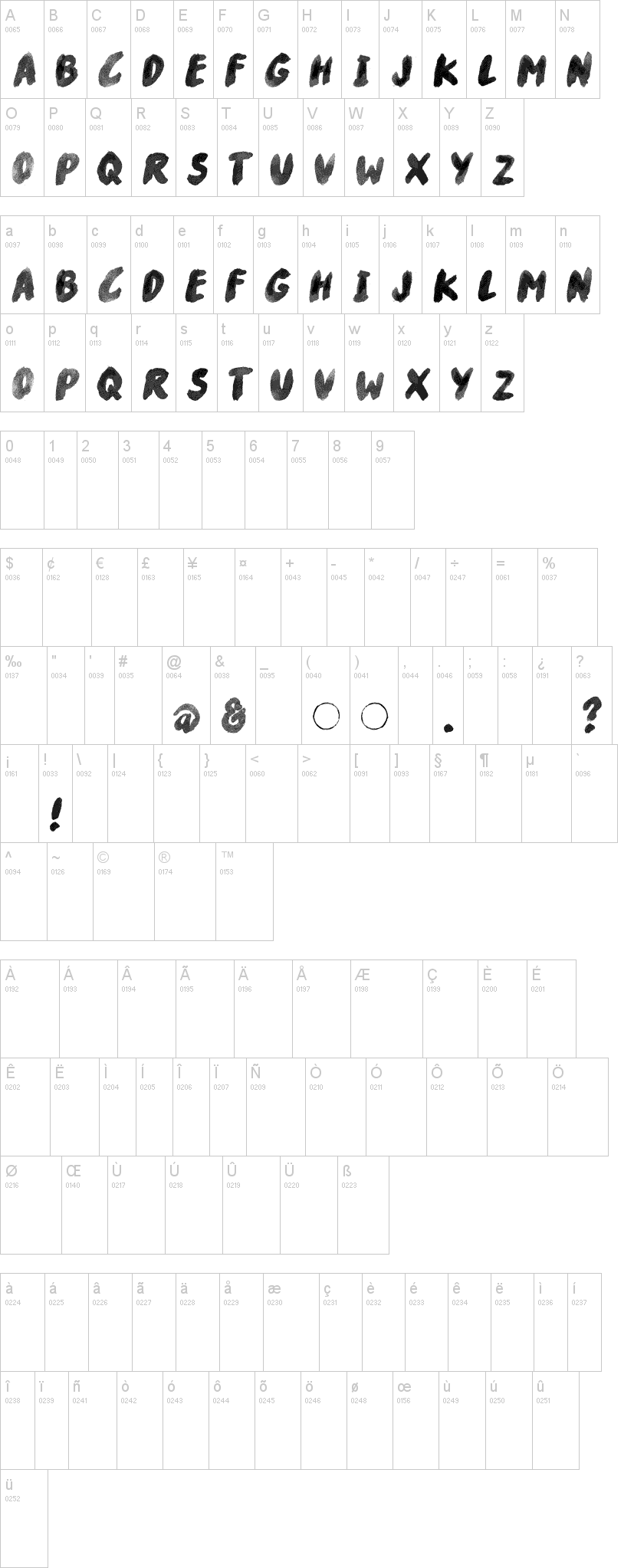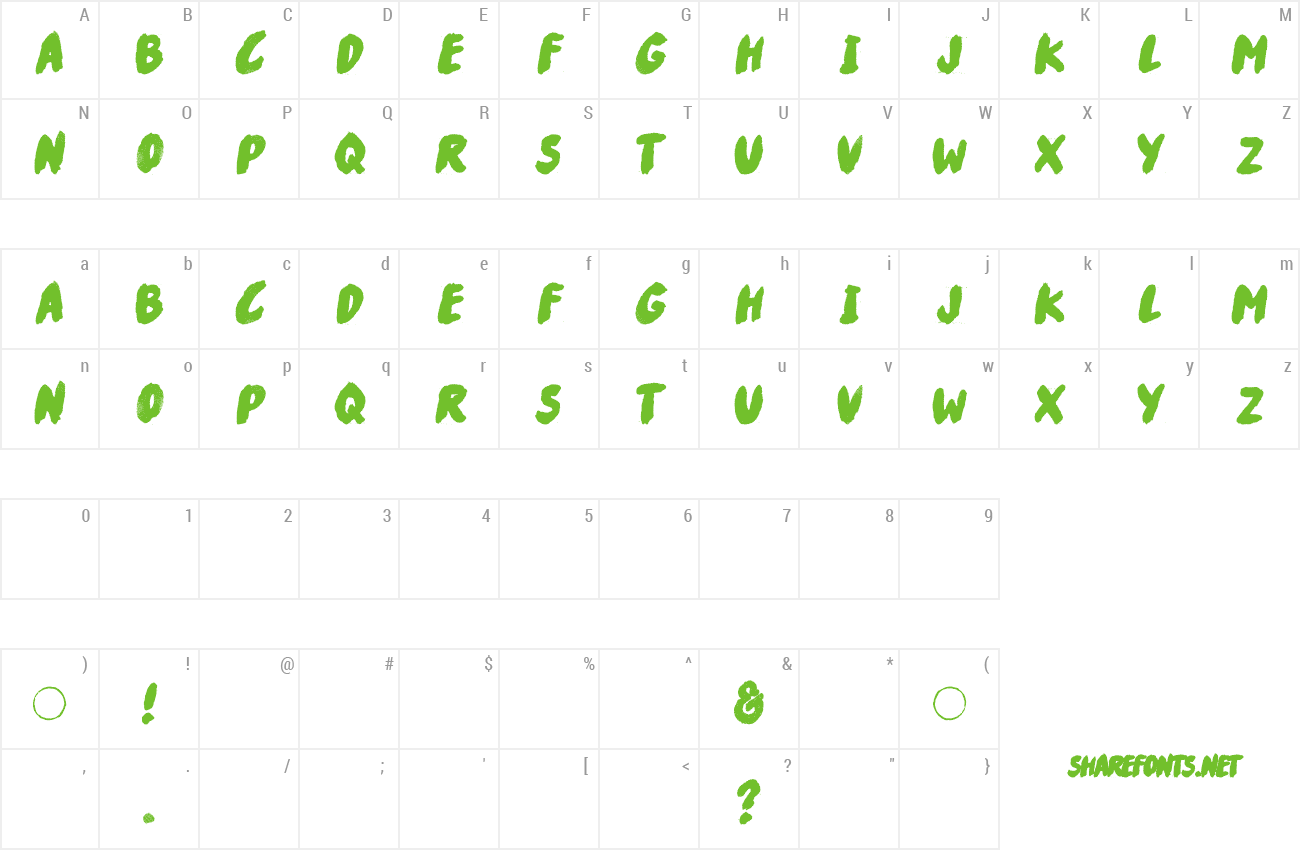
River Drive Font
River Drive Font - This is a new level font creation! New fonts | top fonts | submit a font | font designers | 10,000 fonts | faq | contact Web river drive by the branded quotes. Web river drive font. This is a new level font creation! River drive is a combination of modern brush and street typography with the look of a newly applied wet substance. Web download the river drive font by the branded quotes. Web river drive free font. The river drive font has been downloaded 29,524 times. River drive is a combination of modern brush and street typography with the look of a newly applied wet substance.
Web download the river drive font by the branded quotes. The river drive font has been downloaded 29,524 times. This is a new level font creation! Web river drive free font. River drive is a combination of modern brush and street typography with the look of a newly applied wet substance. Web river drive font. River drive is a combination of modern brush and street typography with the look of a newly applied wet substance. New fonts | top fonts | submit a font | font designers | 10,000 fonts | faq | contact This is a new level font creation! Web river drive by the branded quotes.
Web river drive free font. Web river drive font. This is a new level font creation! The river drive font has been downloaded 29,524 times. River drive is a combination of modern brush and street typography with the look of a newly applied wet substance. New fonts | top fonts | submit a font | font designers | 10,000 fonts | faq | contact River drive is a combination of modern brush and street typography with the look of a newly applied wet substance. Web download the river drive font by the branded quotes. Web river drive by the branded quotes.
River Drive Font
This is a new level font creation! River drive is a combination of modern brush and street typography with the look of a newly applied wet substance. Web river drive by the branded quotes. New fonts | top fonts | submit a font | font designers | 10,000 fonts | faq | contact Web download the river drive font by.
River drive is a combination of modern brush and street typography with the look of a newly applied wet substance. Web river drive free font. Web download the river drive font by the branded quotes. The river drive font has been downloaded 29,524 times. Web river drive by the branded quotes.
River drive is a combination of modern brush and street typography with the look of a newly applied wet substance. River drive is a combination of modern brush and street typography with the look of a newly applied wet substance. Web river drive free font. Web river drive by the branded quotes.
River Drive font
The river drive font has been downloaded 29,524 times. Web river drive font. Web river drive by the branded quotes. This is a new level font creation! River drive is a combination of modern brush and street typography with the look of a newly applied wet substance.
River drive is a combination of modern brush and street typography with the look of a newly applied wet substance. Web download the river drive font by the branded quotes. The river drive font has been downloaded 29,524 times. Web river drive by the branded quotes. This is a new level font creation!
River Drive Font
Web download the river drive font by the branded quotes. River drive is a combination of modern brush and street typography with the look of a newly applied wet substance. This is a new level font creation! Web river drive font. Web river drive free font.
River Drive Font Download
River drive is a combination of modern brush and street typography with the look of a newly applied wet substance. New fonts | top fonts | submit a font | font designers | 10,000 fonts | faq | contact This is a new level font creation! River drive is a combination of modern brush and street typography with the look.
Download free River Drive font, free River Drive.ttf Regular font for
Web download the river drive font by the branded quotes. The river drive font has been downloaded 29,524 times. Web river drive by the branded quotes. River drive is a combination of modern brush and street typography with the look of a newly applied wet substance. This is a new level font creation!
River Drive Font
River drive is a combination of modern brush and street typography with the look of a newly applied wet substance. This is a new level font creation! River drive is a combination of modern brush and street typography with the look of a newly applied wet substance. Web river drive by the branded quotes. The river drive font has been.
River Drive Font download free
Web river drive by the branded quotes. Web download the river drive font by the branded quotes. Web river drive font. New fonts | top fonts | submit a font | font designers | 10,000 fonts | faq | contact River drive is a combination of modern brush and street typography with the look of a newly applied wet substance.
Web River Drive Free Font.
Web river drive font. The river drive font has been downloaded 29,524 times. New fonts | top fonts | submit a font | font designers | 10,000 fonts | faq | contact River drive is a combination of modern brush and street typography with the look of a newly applied wet substance.
Web River Drive By The Branded Quotes.
This is a new level font creation! Web download the river drive font by the branded quotes. This is a new level font creation! River drive is a combination of modern brush and street typography with the look of a newly applied wet substance.